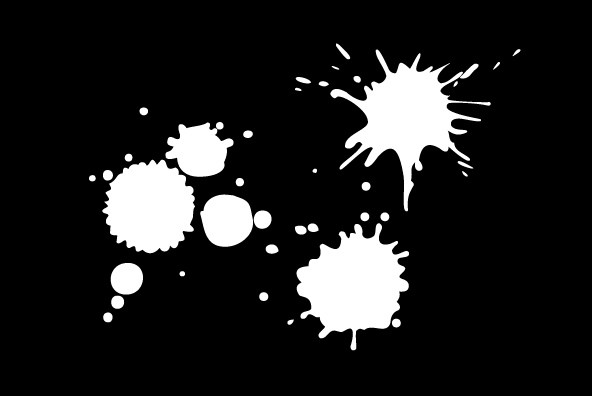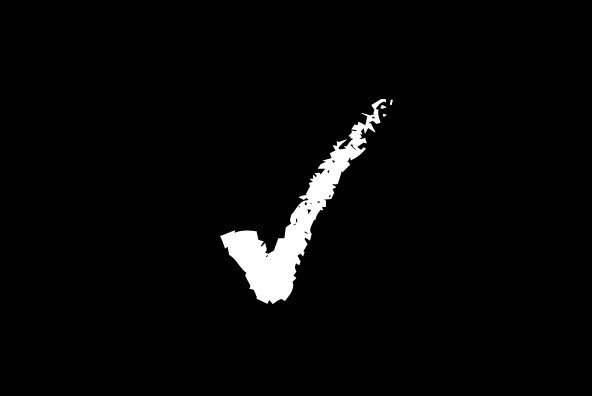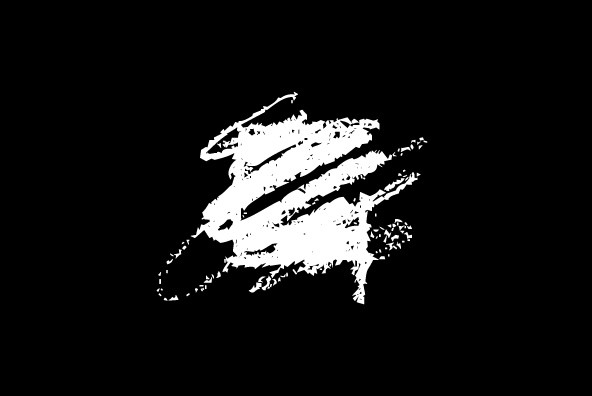
Blobs, Brush Strokes & Balloons
Foundry: Outside The Line
50 blobs, brush strokes, balloons, ovals, scribbles and a few characters. Outline, color, flip or flop. Reverse type out of brush strokes and or use them to underline type. Best used in large sizes as clip art. An easy and quick way to add a creative and artistic flare to any job. Lots of variation.